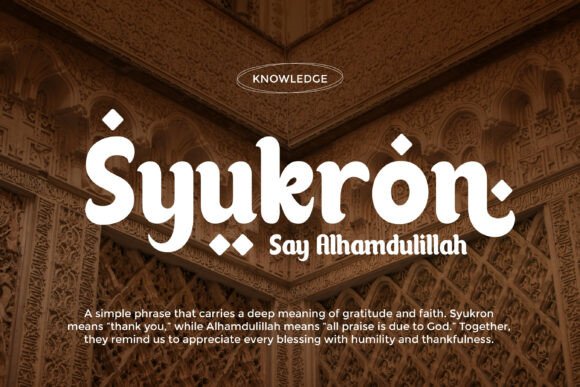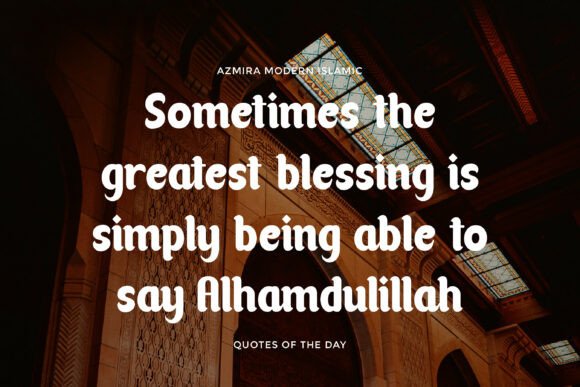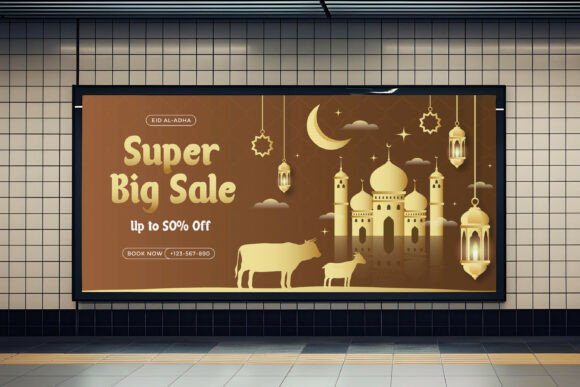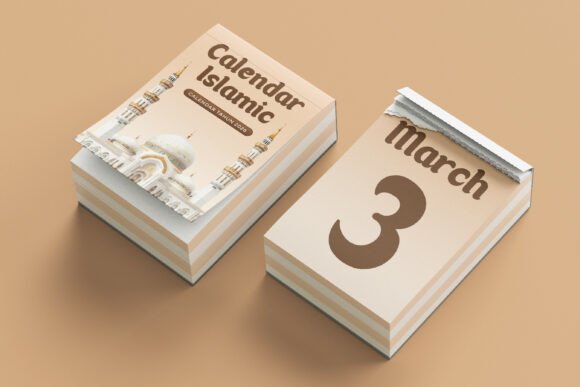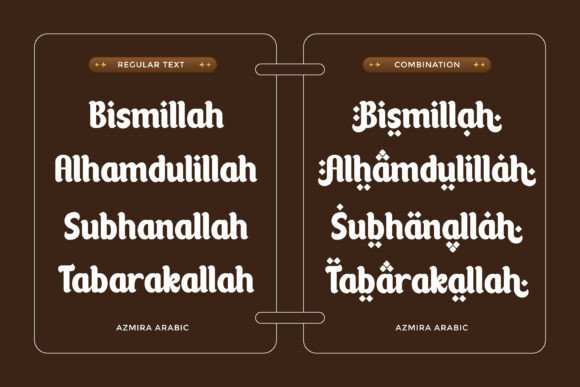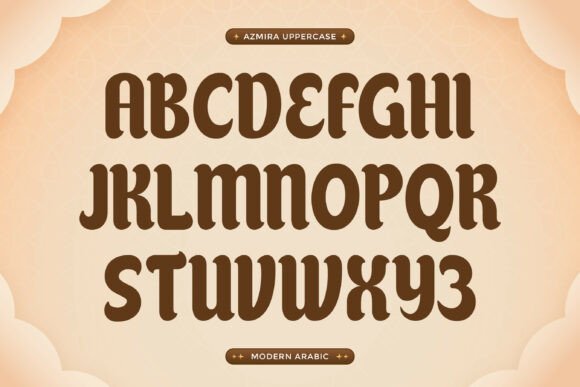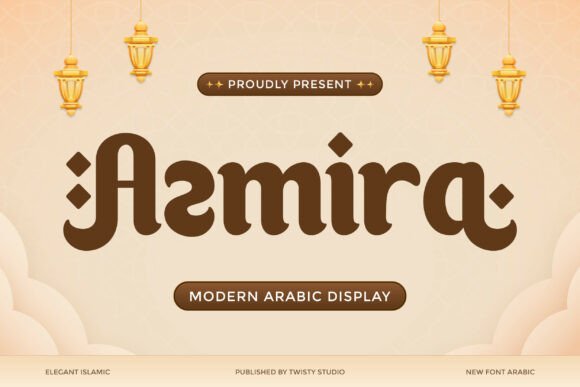
Introducing Azmira Font: A Modern Arabic Display Font
Azmira is a stunning modern Arabic display font that seamlessly blends cultural elegance with a contemporary design approach. Inspired by the rich heritage of Arabic letterforms, this typeface features smooth curves, flowing lines, and distinctive shapes that create a harmonious and visually captivating style. It brings a unique balance between tradition and modernity, making it both expressive and refined.
The Inspiration Behind Azmira
Azmira’s design is deeply rooted in the rich cultural heritage of Arabic letterforms. The font’s creator drew inspiration from the intricate patterns, flowing lines, and elegant curves that are characteristic of traditional Arabic calligraphy. By combining these classic elements with a modern design approach, Azmira’s creator has crafted a font that is both timeless and contemporary.
Design Characteristics of Azmira
Azmira’s design is characterized by its smooth curves, flowing lines, and distinctive shapes. The font features a range of elegant and refined letterforms, each with its own unique personality. The curves and lines of Azmira’s letters are carefully crafted to create a sense of harmony and balance, making it perfect for use in a variety of design applications.
What Makes Azmira Unique?
Azmira’s unique blend of traditional and modern design elements sets it apart from other Arabic display fonts. The font’s creator has carefully balanced the classic elegance of Arabic letterforms with a contemporary design approach, resulting in a font that is both expressive and refined. Whether you’re looking to create a stunning headline, a beautiful logo, or a captivating poster, Azmira is the perfect choice.
Use Cases for Azmira
Azmira’s versatility and elegance make it suitable for a wide range of design applications, including:
- Headlines and titles: Azmira’s bold and expressive letterforms make it perfect for use in headlines and titles.
- Logos and branding: Azmira’s unique blend of traditional and modern design elements makes it an excellent choice for logos and branding.
- Posters and flyers: Azmira’s elegant and refined letterforms make it perfect for use in posters and flyers.
- Packaging and product design: Azmira’s distinctive shapes and flowing lines make it suitable for use in packaging and product design.
Why Choose Azmira?
- Unique and expressive design: Azmira’s blend of traditional and modern design elements makes it a truly unique and expressive font.
- Elegant and refined: Azmira’s smooth curves and flowing lines give it an elegant and refined appearance that is perfect for a wide range of design applications.
- Versatile: Azmira is suitable for use in a variety of design applications, from headlines and titles to logos and branding.
- High-quality: Azmira is a high-quality font that is designed to deliver exceptional results in any design application.
Tips for Using Azmira
Here are a few tips for using Azmira in your designs:
- Experiment with different sizes: Azmira’s elegant and refined letterforms look great in a variety of sizes, from large headlines to smaller body text.
- Pair with other fonts: Azmira pairs well with a range of other fonts, including sans-serif and serif fonts.
- Use in combination with images: Azmira’s distinctive shapes and flowing lines make it perfect for use in combination with images.
Azmira is a stunning modern Arabic display font that beautifully blends cultural elegance with a contemporary design approach. With its smooth curves, flowing lines, and distinctive shapes, Azmira is perfect for designers and crafters looking to add a touch of elegance and refinement to their designs. Whether you’re creating a headline, logo, poster, or packaging, Azmira is the perfect choice.